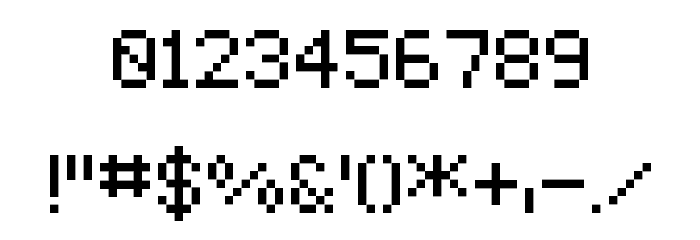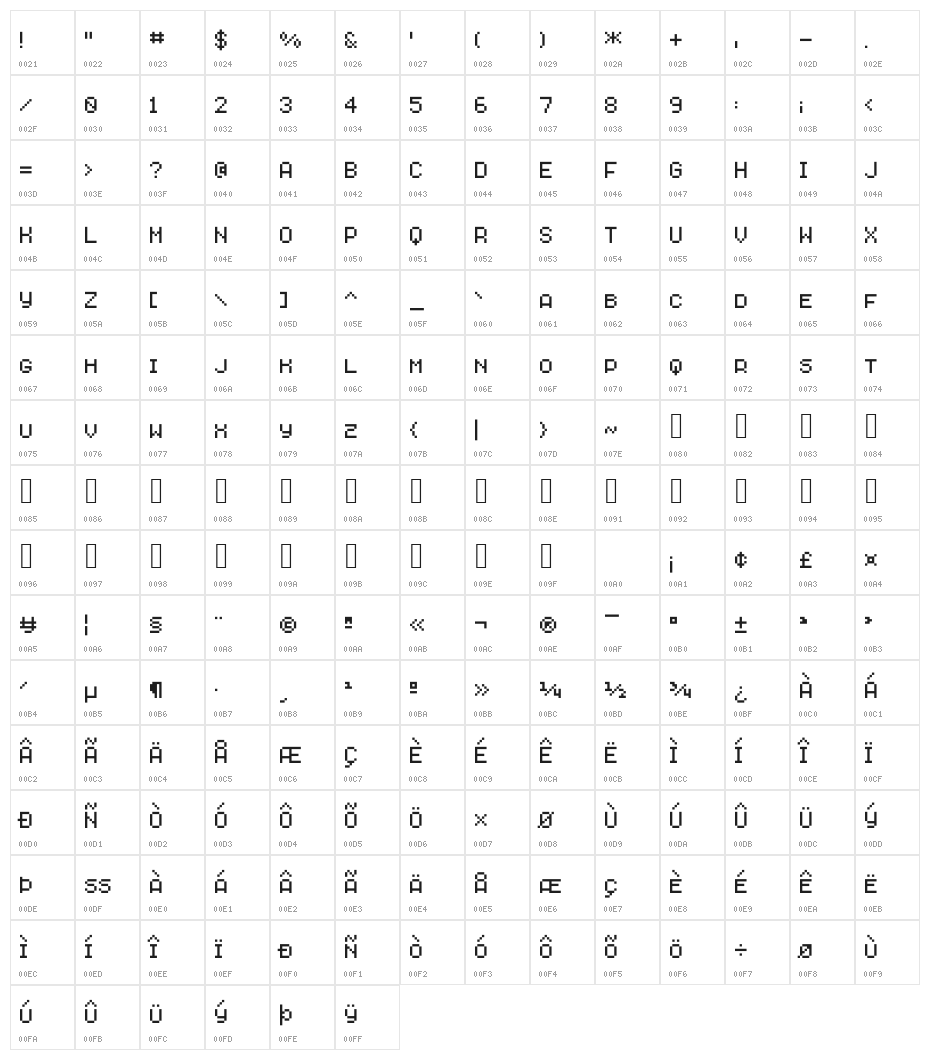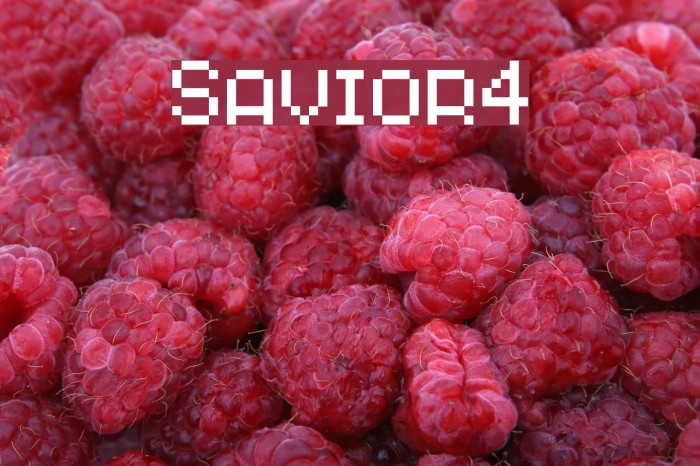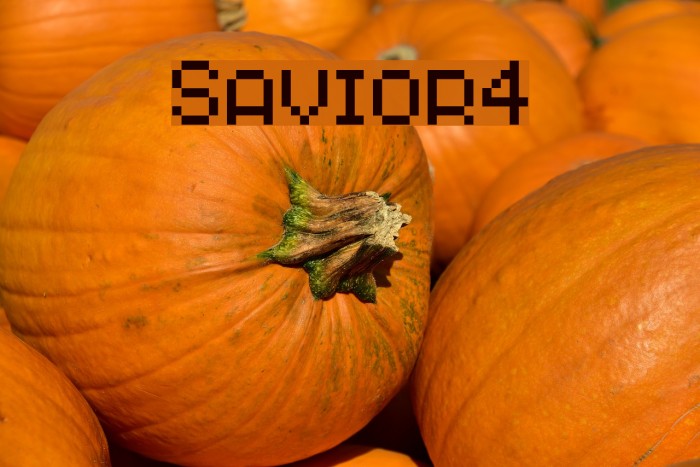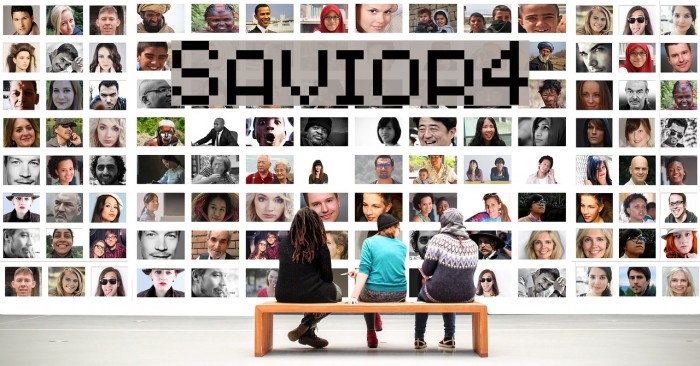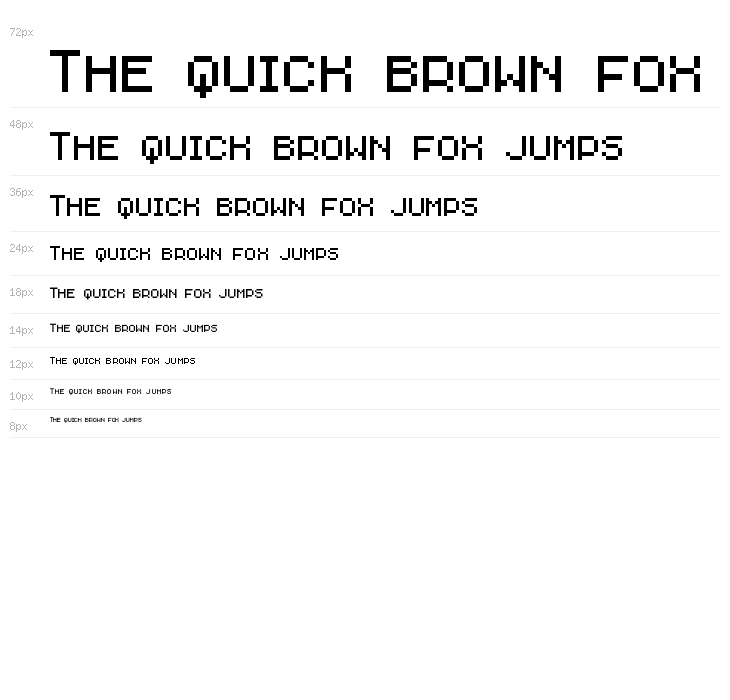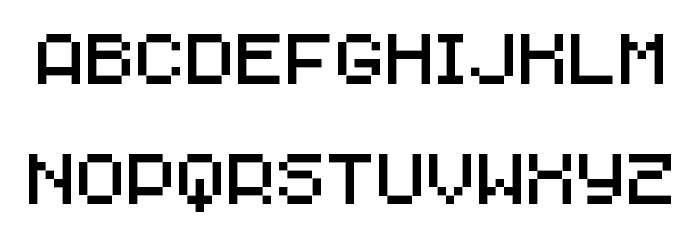
Savior4 Font
This font features a pixelated, blocky design reminiscent of early digital displays and retro video games. Each character is composed of square pixels, giving it a distinctly digital and geometric appearance. The uppercase and lowercase letters maintain a consistent height, contributing to a uniform and structured look. Numbers and special characters follow the same pixelated style, ensuring visual coherence across all elements. The font's simplicity and clarity make it highly legible, even at smaller sizes, while its nostalgic aesthetic evokes a sense of vintage computing.
Overall StyleVintage
Proposed ProjectsIdeal for retro video game designs, digital art projects, tech-themed posters, and nostalgic branding.